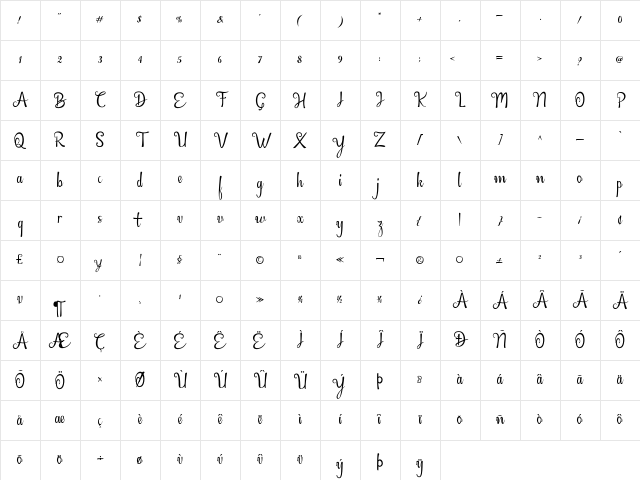
Complete Britania Regular glyph index. Displaying only characters natively supported by Britania Regular font.
Britania is a composed and adaptable typeface that performs quietly and consistently across a wide range of design contexts.